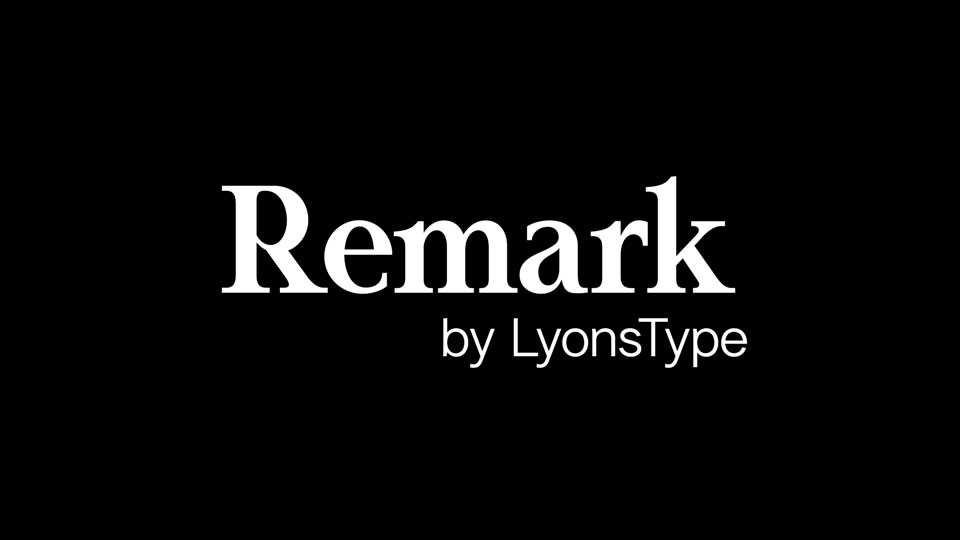
Download LT Remark font, a storytelling-friendly typeface which of course pays an accurate reference to one of Pesala’s common fonts called Garava. LT Remark is usable for e-books, and it can also be used for anything classical considering the classification of it.
Designer: LyonsType